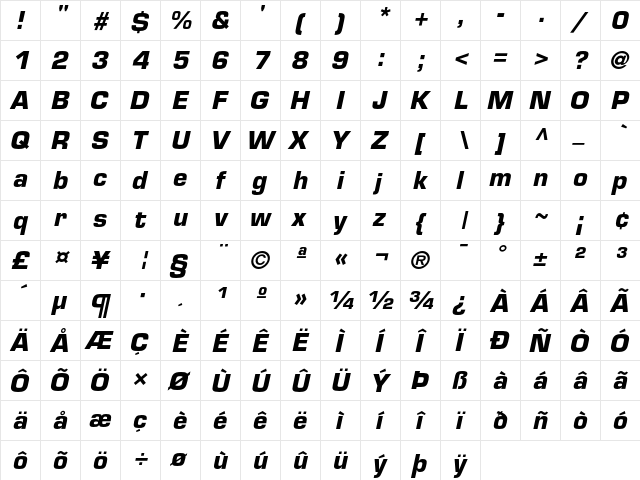
Eurostile Bold Oblique
Design Context for Eurostile Typeface
Eurostile takes a measured approach to typography — its balanced proportions and neutral character make it a reliable workhorse for both digital and print work. The dynamic lean of this cut emphasises speed and emphasis in any layout. The heavy weight commands attention and anchors typographic hierarchies.
Pro Tip: Use Eurostile for emphasis, pull quotes, and subheadings where its slanted energy can add rhythm to the layout.